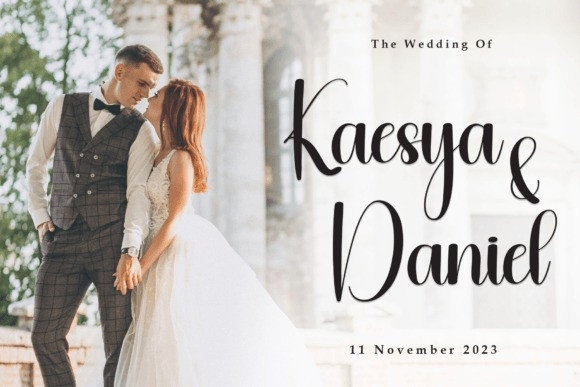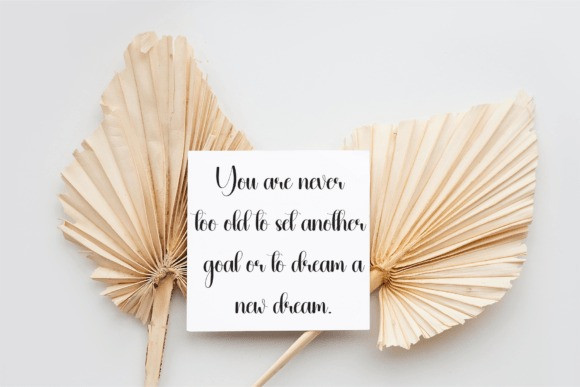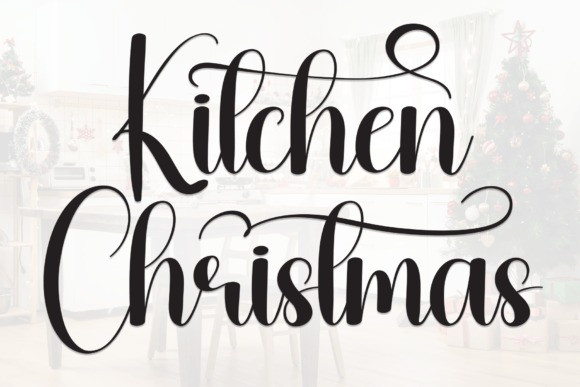
Kitchen Christmas Font
Kitchen Christmas Font a charming handwritten font adorned with adorable swashes. This festive typeface adds a touch of warmth and playfulness to your text, making it perfect for holiday-themed designs. With its cute and inviting style, KitchenChristmas is an ideal choice for creating festive cards, seasonal recipes, or any project that aims to capture the joyful spirit of the holiday season. Bring a sprinkle of merriment to your typography with this delightful and festive font.